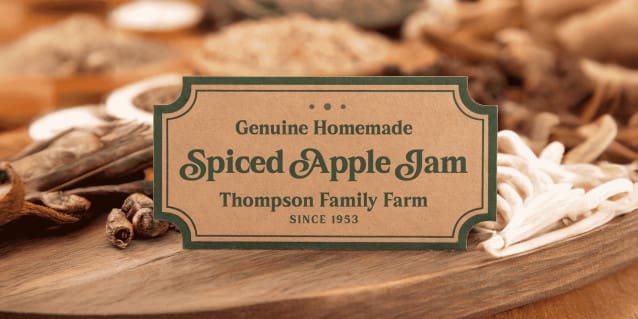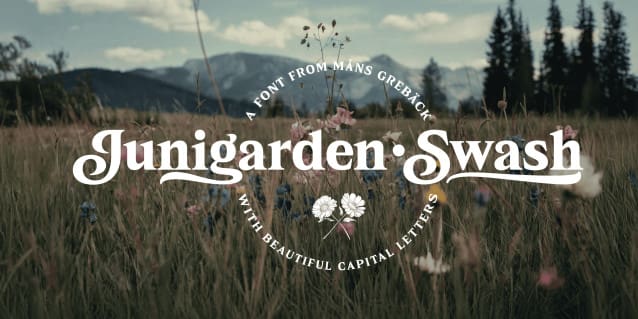
Junigarden Font
Junigarden Font, evokes a warm, nostalgic feeling, blending vintage elegance with flowing swashes that add a decorative flair.
The font strikes the perfect balance between boldness and delicacy.
Use underscore _ anywhere in a word to make a swash.
Pri_nce
Multiple swasher make different swashes:
Am_______ore